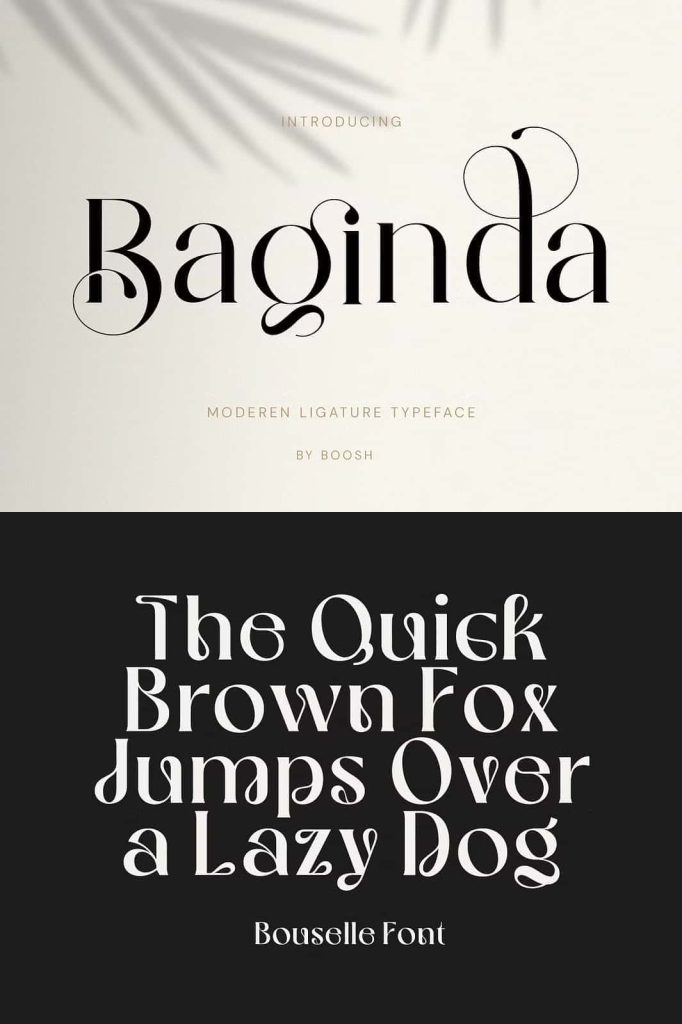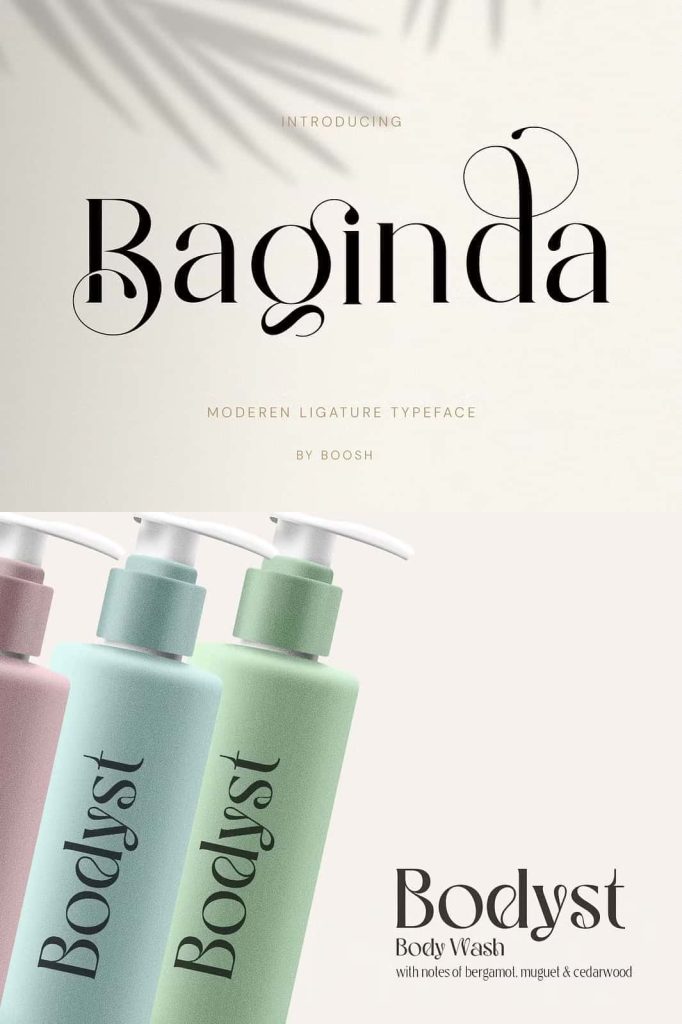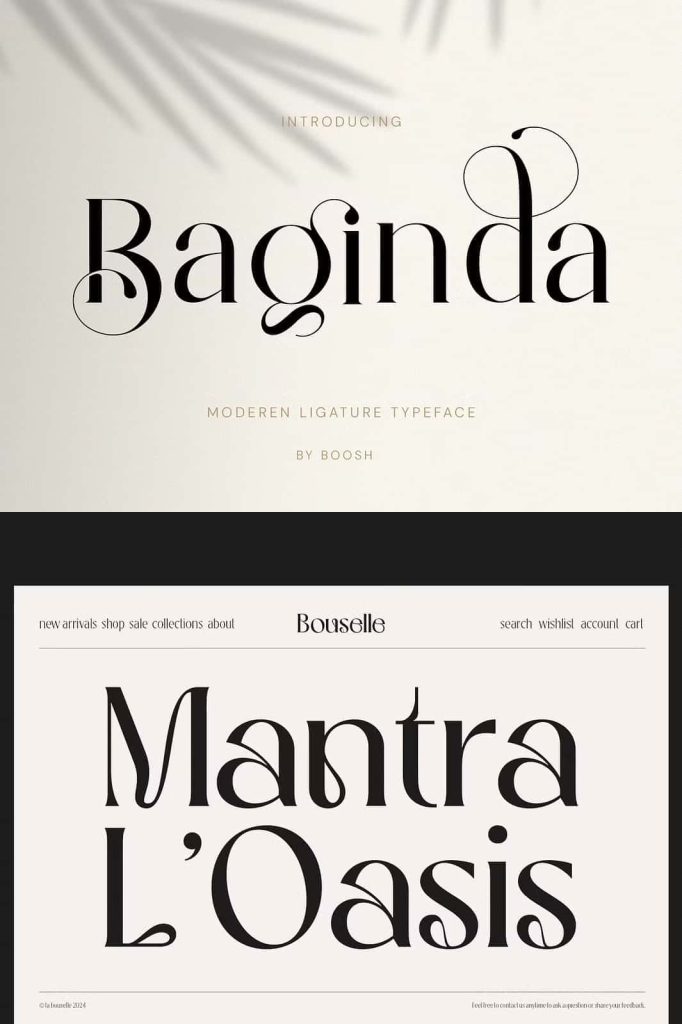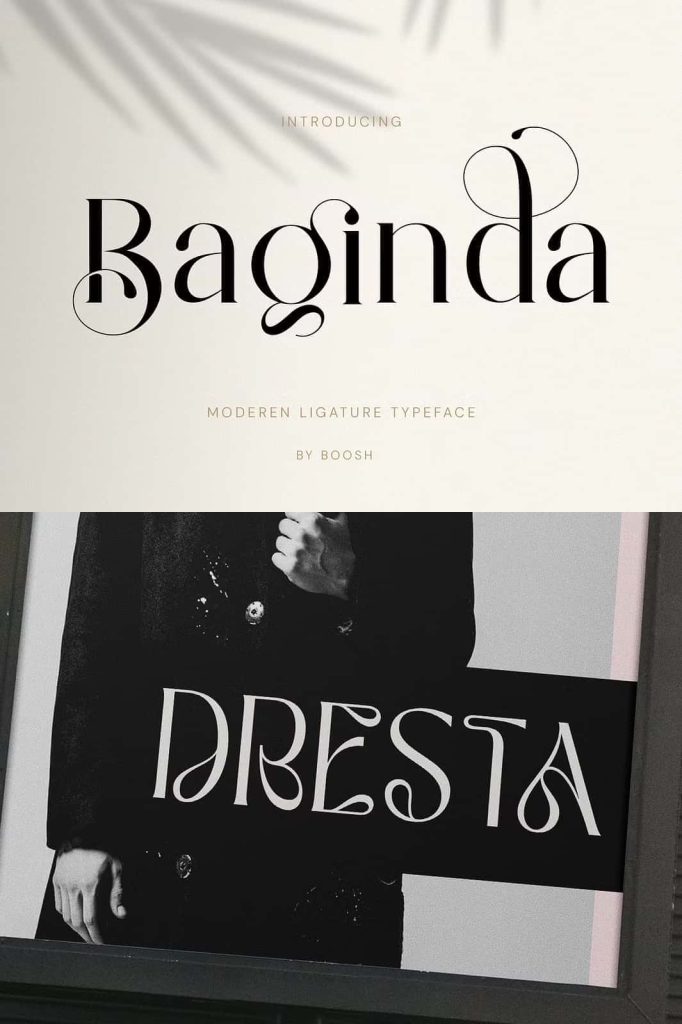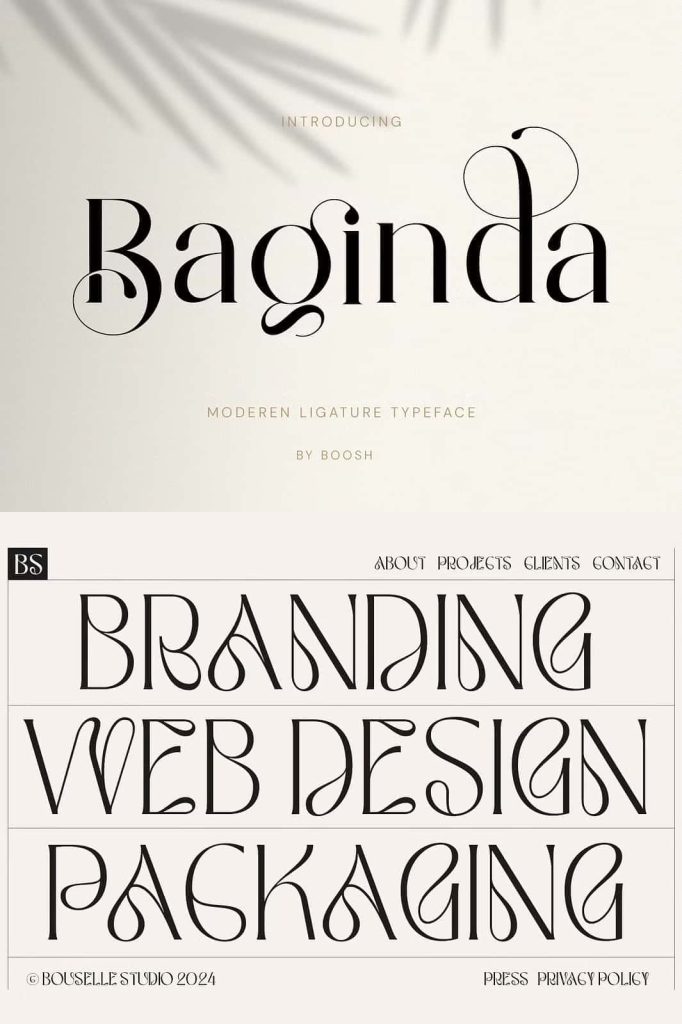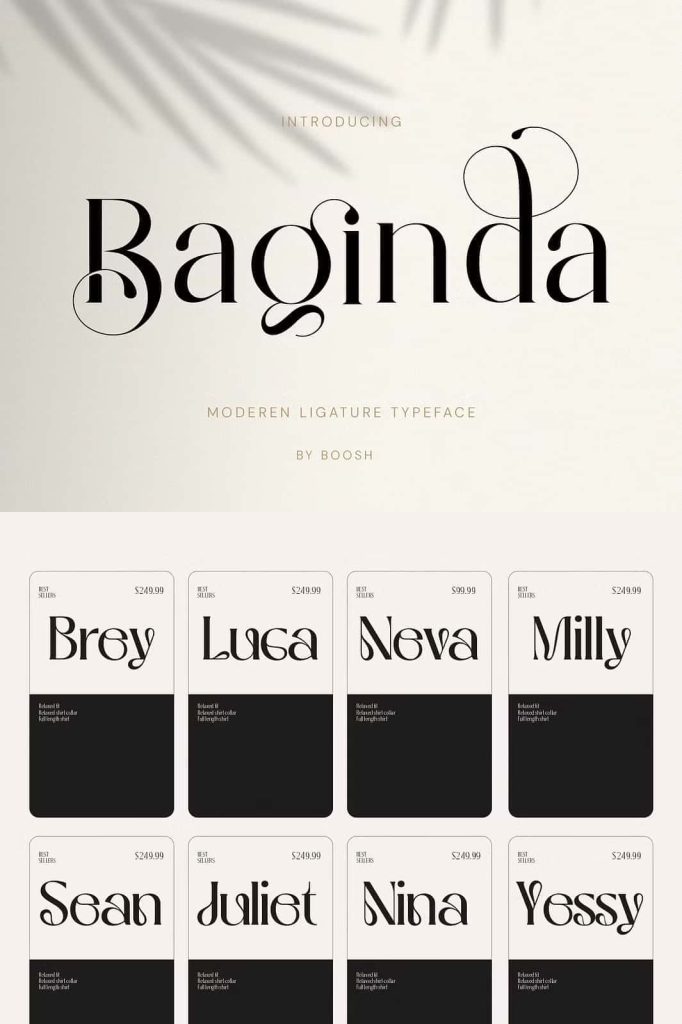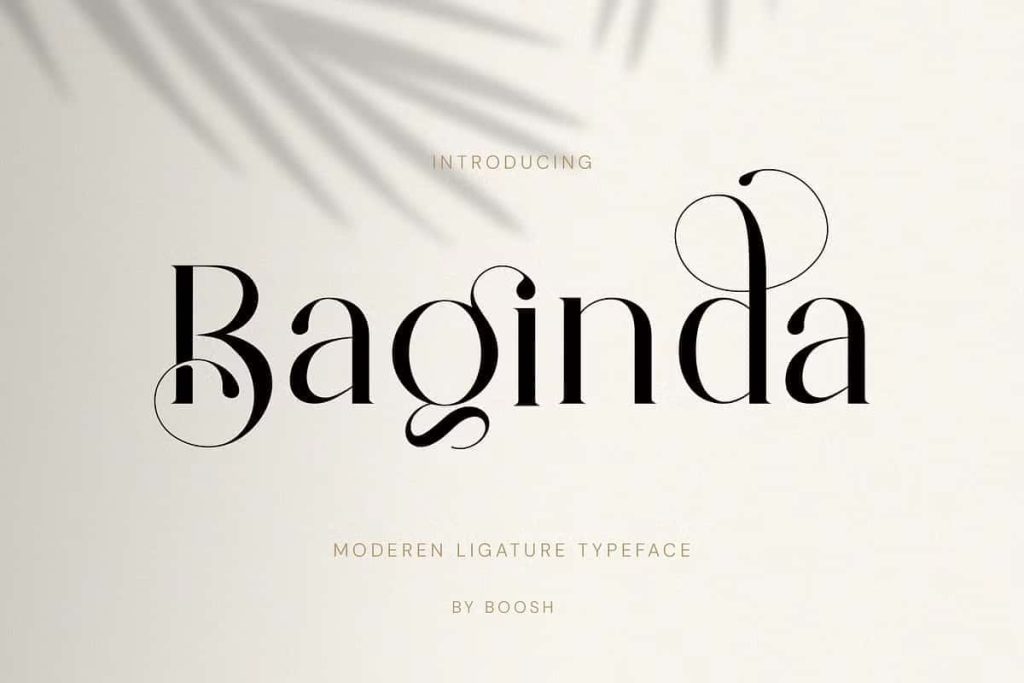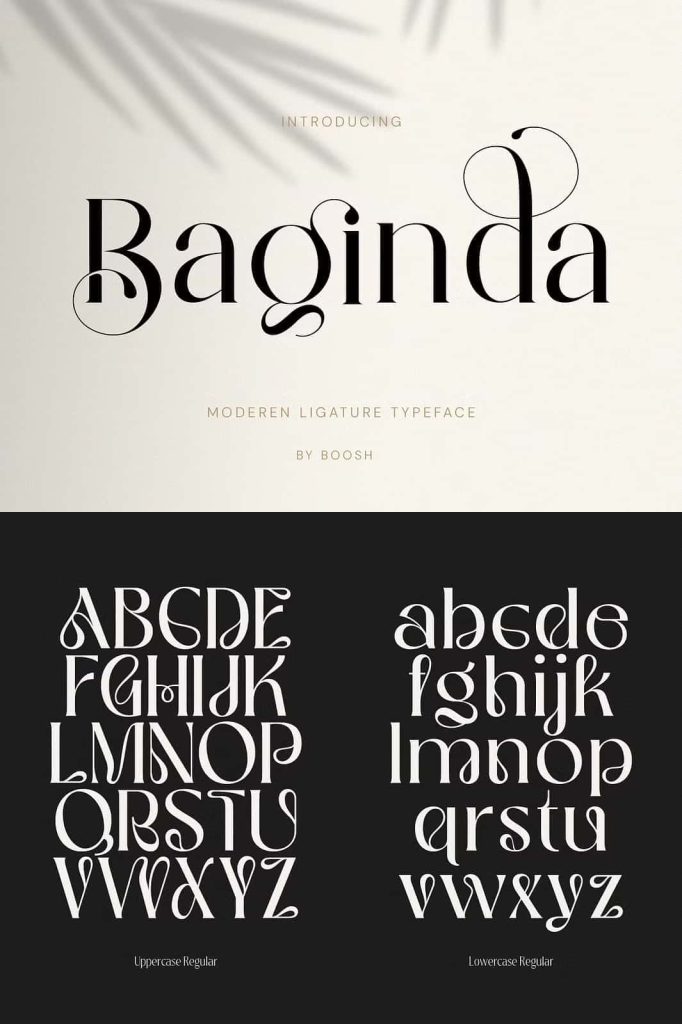
Baginda Serif Font
Baginda Serif is a refined and stylish serif font that combines elegance, balance, and smooth character design. This typeface presents a sophisticated typographic style that works beautifully across a wide range of creative and professional design projects. With its graceful letterforms and polished appearance, Baginda Serif helps designers create typography that feels both modern and timeless.
The font delivers a strong visual presence while maintaining readability and harmony between characters. Each letter has been carefully designed to ensure smooth curves, balanced proportions, and a refined serif structure. These qualities allow Baginda Serif to perform effectively in both display typography and formal design compositions.
Designers who want to communicate professionalism, elegance, and confidence through typography will find Baginda Serif to be an excellent choice. Its graceful style enhances visual storytelling while keeping text clear and easy to read.
Elegant and Balanced Serif Design
Baginda Serif stands out because of its balanced letterforms and elegant structure. The typeface uses traditional serif principles while adding smooth curves and refined edges that elevate its visual appeal. These subtle design details create a harmonious rhythm across words and sentences.
The balanced spacing between letters improves readability and ensures that the font performs well in different typographic environments. Whether designers use it for titles, branding, or printed materials, Baginda Serif maintains visual clarity and sophistication.
This balance makes the font adaptable to both minimal layouts and more decorative design styles. The elegant serif elements add character without overpowering the overall design.
Smooth and Refined Letterforms
The smooth character shapes of Baginda Serif give the font a graceful and polished personality. Each stroke transitions naturally into the next, producing a visually pleasing flow that enhances the reading experience. These refined curves add warmth and personality to the typography while maintaining a professional tone.
The attention to detail in the letter construction ensures that every character feels intentional and carefully crafted. This thoughtful design approach helps the font maintain consistency across different sizes and layouts.
A Typeface with Beautiful Character
Baginda Serif offers more than simple readability. The font introduces distinctive personality through its elegant serifs and subtle stylistic features. These elements work together to create typography that feels expressive yet refined.
Designers often seek fonts that communicate both style and professionalism. Baginda Serif fulfills this need by combining aesthetic beauty with practical functionality. The result is a typeface that enhances visual identity while supporting clear communication.
The font’s character becomes especially noticeable in titles and headlines where its elegant forms can truly shine. At larger sizes, the subtle curves and refined serifs reveal their full visual charm.
Perfect for Professional and Creative Design
Baginda Serif adapts easily to many types of design projects. Its elegant style fits naturally in formal design environments while still offering enough personality for creative work. This versatility makes the font a valuable addition to any designer’s typography collection.
Whether used in print or digital media, Baginda Serif helps designers create polished compositions that feel sophisticated and visually balanced.
Common Design Applications
Designers frequently choose Baginda Serif for projects that require a refined and professional appearance. Some of the most popular uses include:
- Invitation card designs
- Company logos and brand identities
- Movie titles and film graphics
- Business cards and corporate stationery
- Book titles and publishing layouts
- Brand names and marketing materials
- Editorial and magazine design
In each of these applications, the font contributes a sense of elegance and authority that strengthens the visual impact of the design.
Excellent Choice for Branding and Identity
Baginda Serif works particularly well for branding and identity projects. Brands often require typography that communicates trust, professionalism, and visual distinction. The refined serif structure of this font helps establish a strong and recognizable brand presence.
The elegant letterforms provide a premium appearance that suits luxury brands, creative agencies, publishing companies, and many other industries. When used in logos or brand headlines, Baginda Serif delivers a memorable and polished typographic identity.
Designers can pair the font with modern sans-serif typefaces or minimal design elements to create balanced and contemporary branding systems.
Enhance Titles and Display Typography
Baginda Serif performs exceptionally well in titles and large typographic compositions. The graceful curves and refined serifs become more noticeable at larger sizes, allowing the font’s beauty to fully emerge.
From invitation cards to branding identities and movie titles, this font consistently delivers a polished and sophisticated typographic style. Designers can rely on Baginda Serif to transform ordinary text into elegant visual elements that enhance the overall design.
If you are looking for a serif font that blends classic elegance with modern refinement, Baginda Serif provides the perfect balance of beauty and functionality.